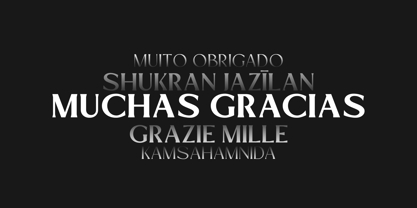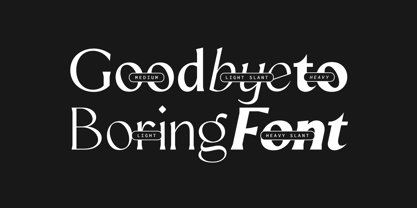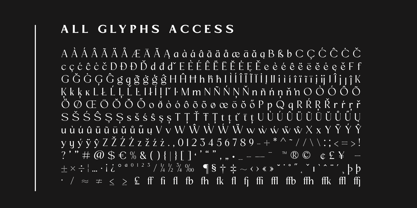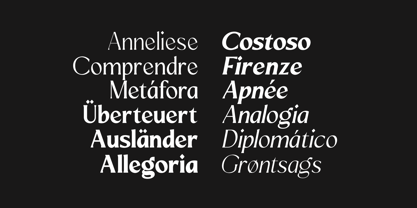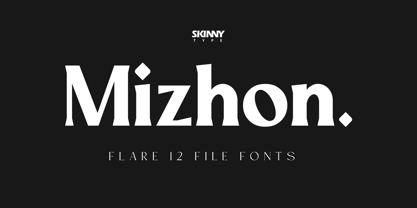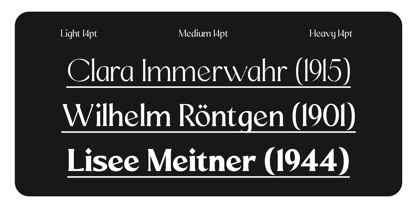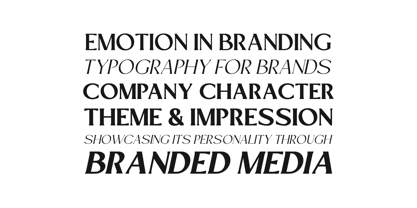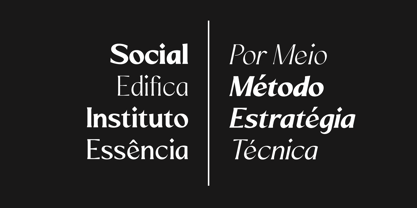
Mizhon Flare
The Mizhon Flare Font Family was designed by Muhajir and published by Skinny Type. Mizhon Flare contains 13 styles and family package options. More about this family
Mizhon Flare sits between serif and sans, defined by gently expanding stroke endings that create dynamic visual tension. The flared terminals feel expressive and contemporary, offering character without the formality of traditional serifs. This style carries a sense of motion and personality, making it perfect for bold branding, creative campaigns, and statement typography. It delivers uniqueness while maintaining readability and structural balance.